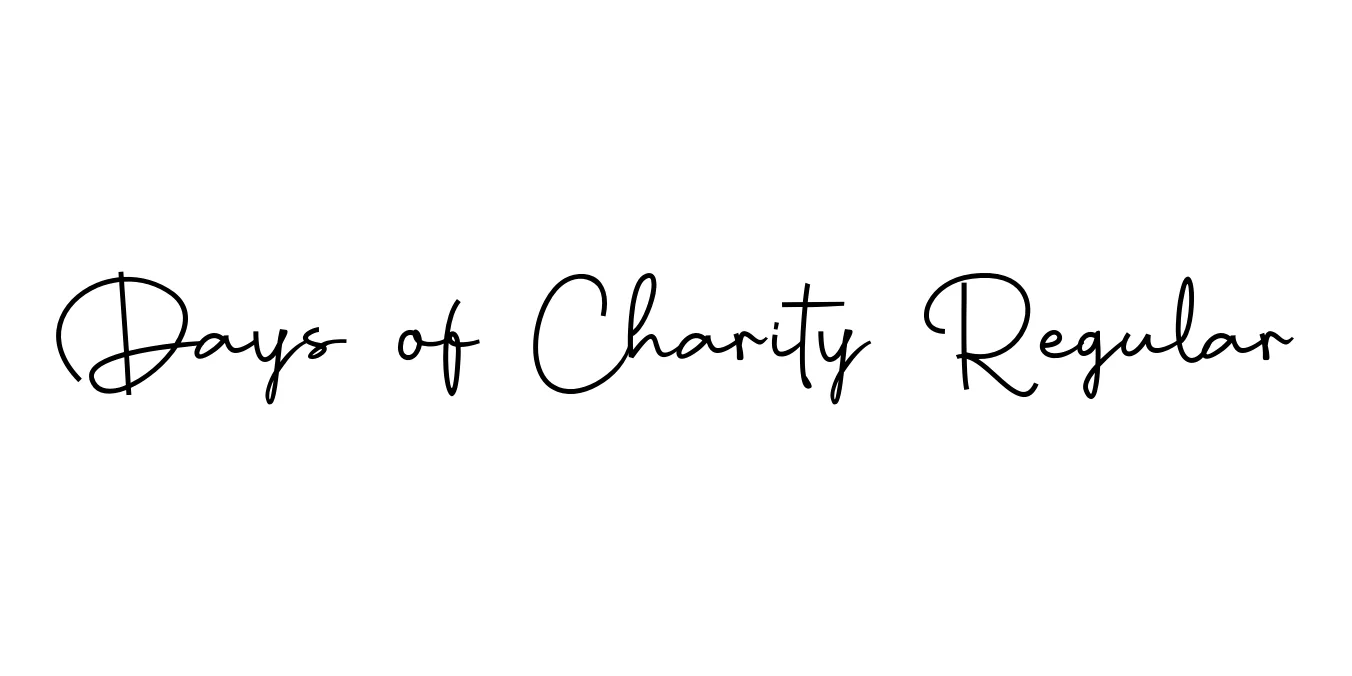
Days of Charity Regular
Days of Charity Regular is a beautiful, hand-drawn script font created by the renowned typeface designer Mans Greback. Characterized by its organic strokes and fluid movement, this typeface captures a sense of warmth and authenticity that is often missing from digital-first fonts. Its elegant letterforms feature subtle imperfections that mimic real ink on paper, making it an ideal choice for projects that require a personal, human touch.
Originally released to evoke a sense of kindness and community, the font has become a favorite among designers for its versatility in both digital and print media. Whether used for non-profit branding or sophisticated wedding invitations, Days of Charity maintains high legibility while offering a distinct aesthetic flair. Its generous spacing and rhythmic flow ensure that every word feels balanced and inviting to the reader.
Days of Charity Regular Best Uses
Creating elegant and personalized invitations or RSVP cards.
Crafting heartfelt quotes or aesthetic Instagram posts.
Developing unique brand identities for boutique businesses or non-profits.
Adding a warm, handmade feel to seasonal or celebratory cards.